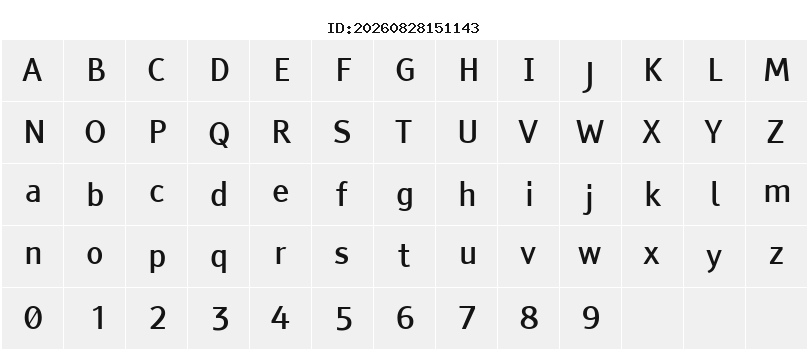
• Font Name: Tiresias PCfont Z
• Full Font Name: Tiresias PCfont Z
• Designer: Laker Sharville
About Tiresias PCfont Z.ttf
Tiresias PCfont Z.ttf is a modern, elegant sans-serif font designed for ultimate readability and visual harmony. Perfect for branding, headlines, web design, and print materials.